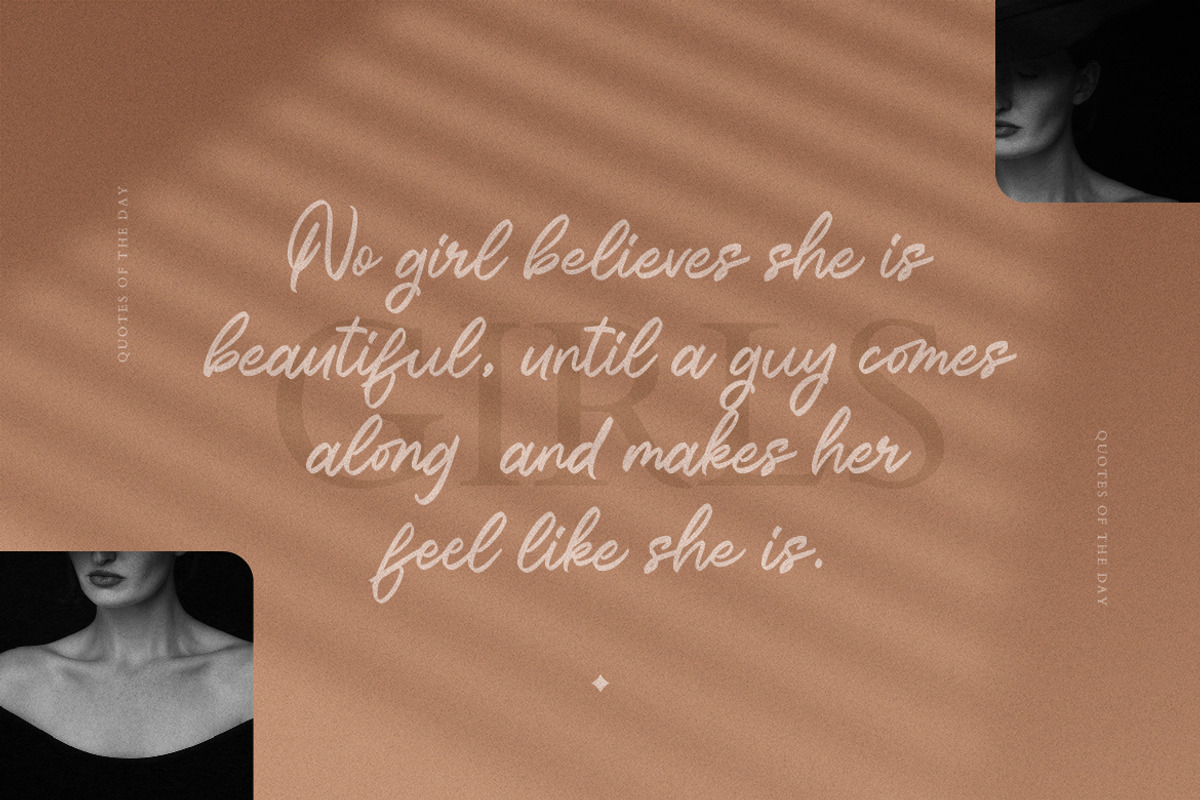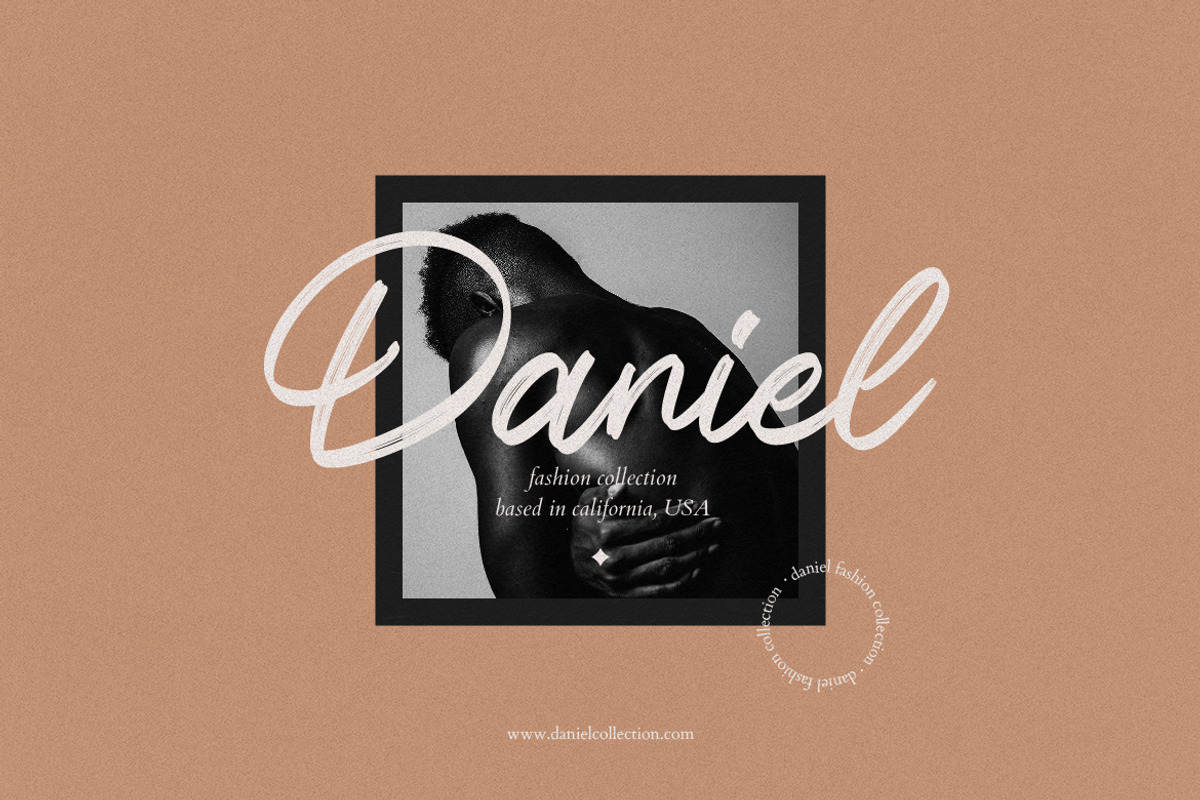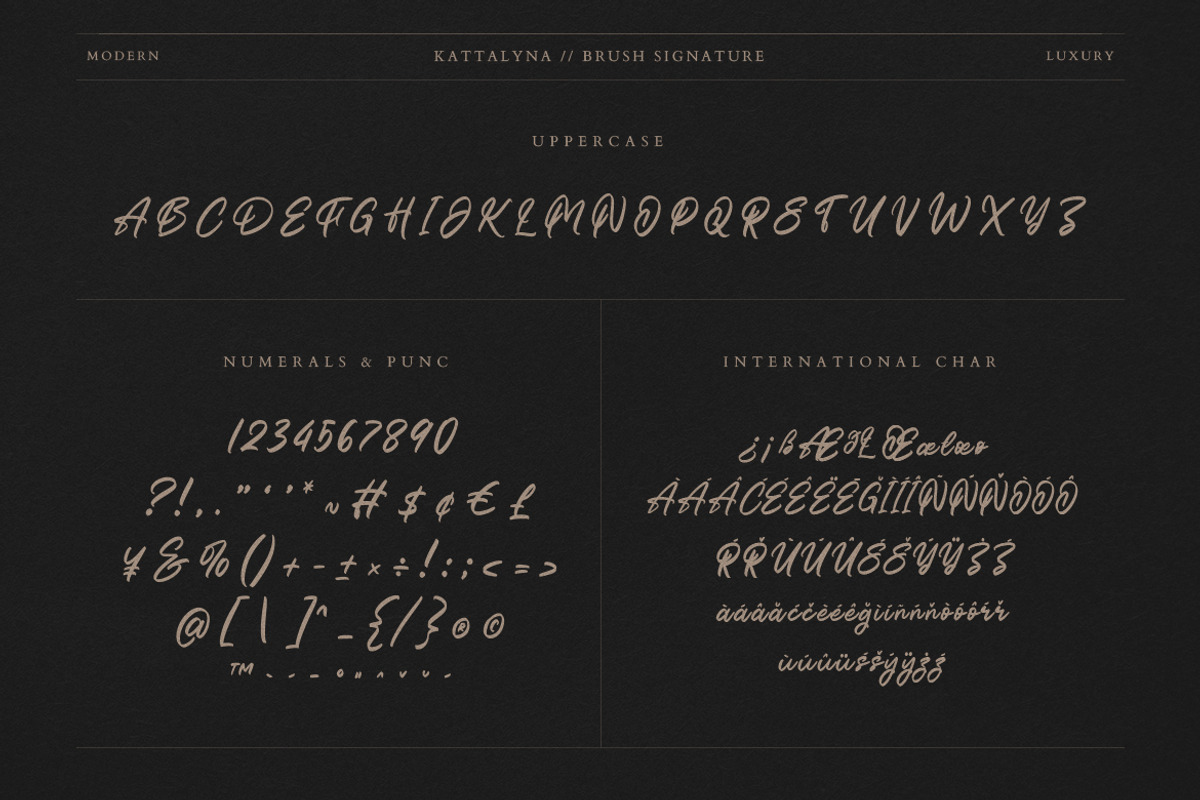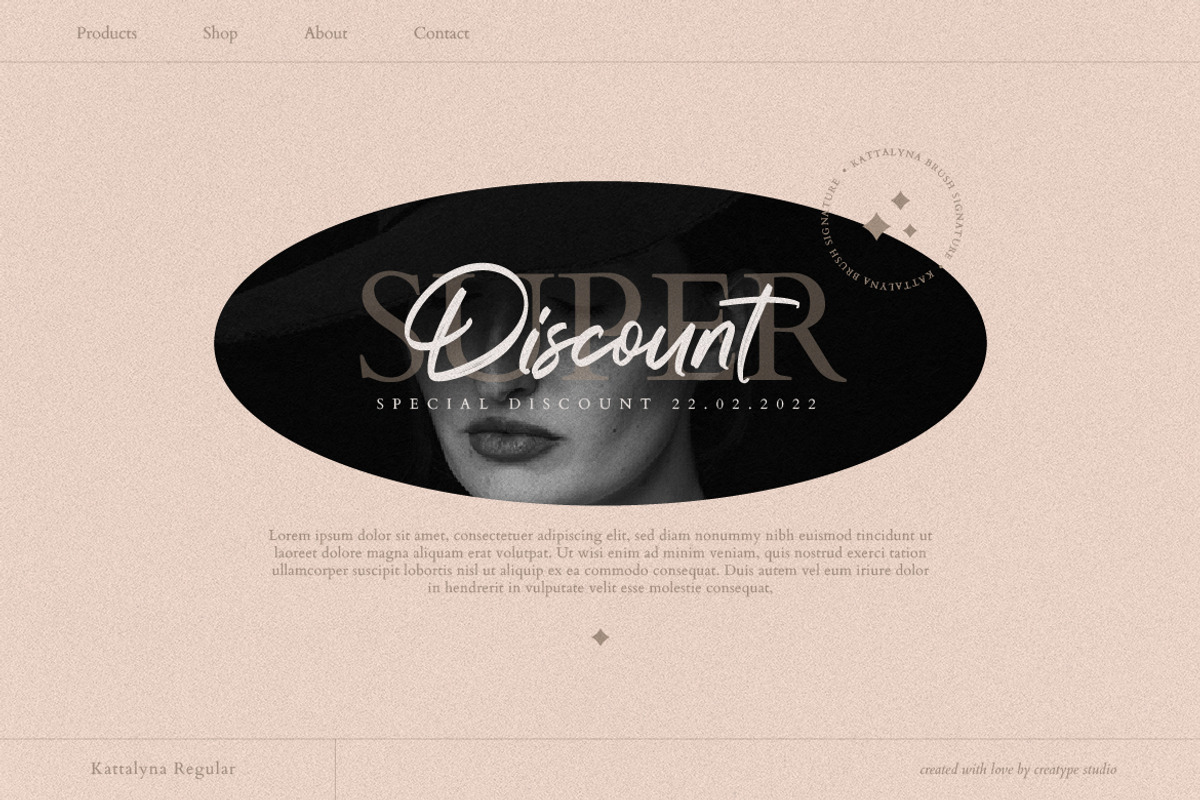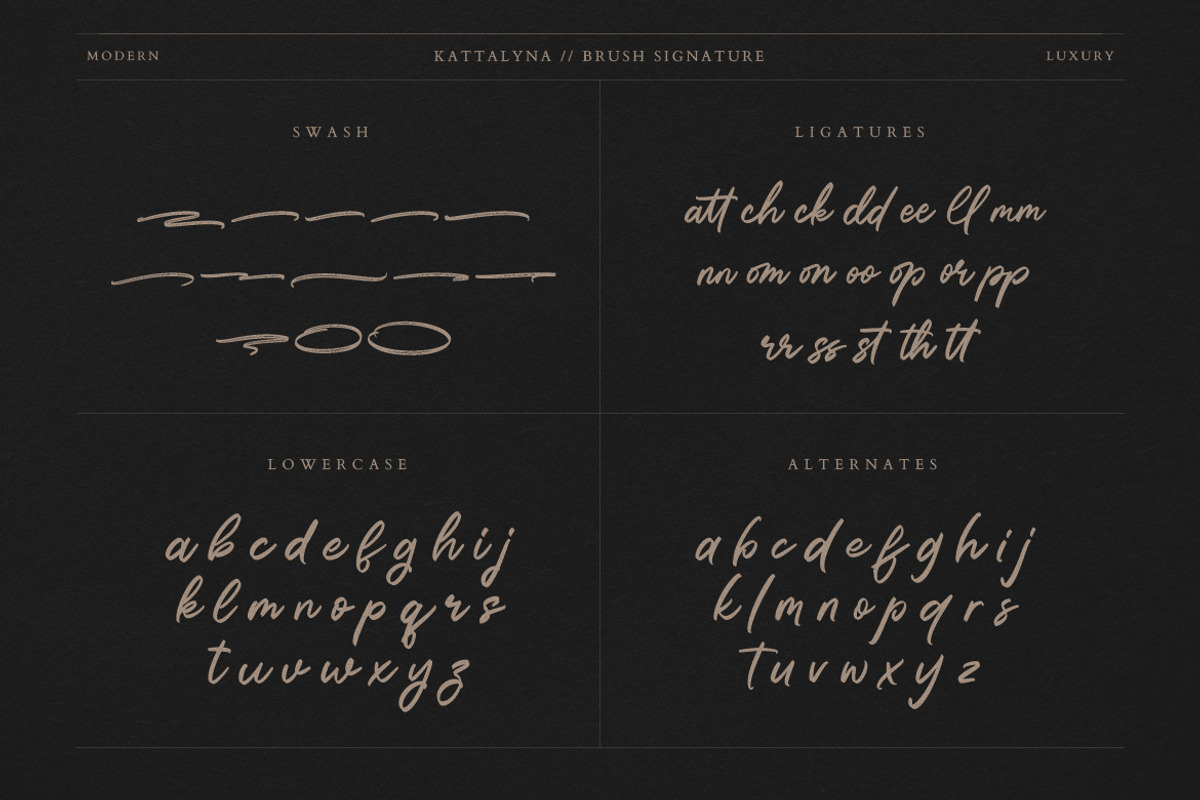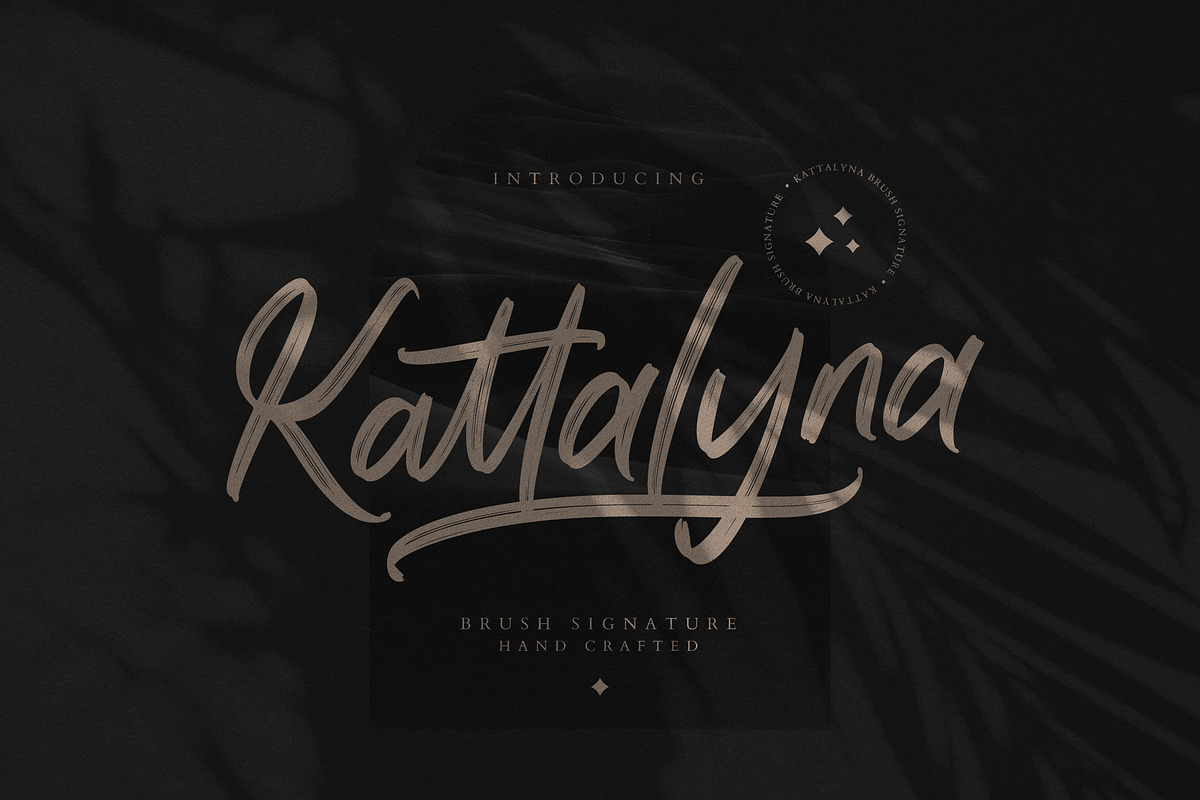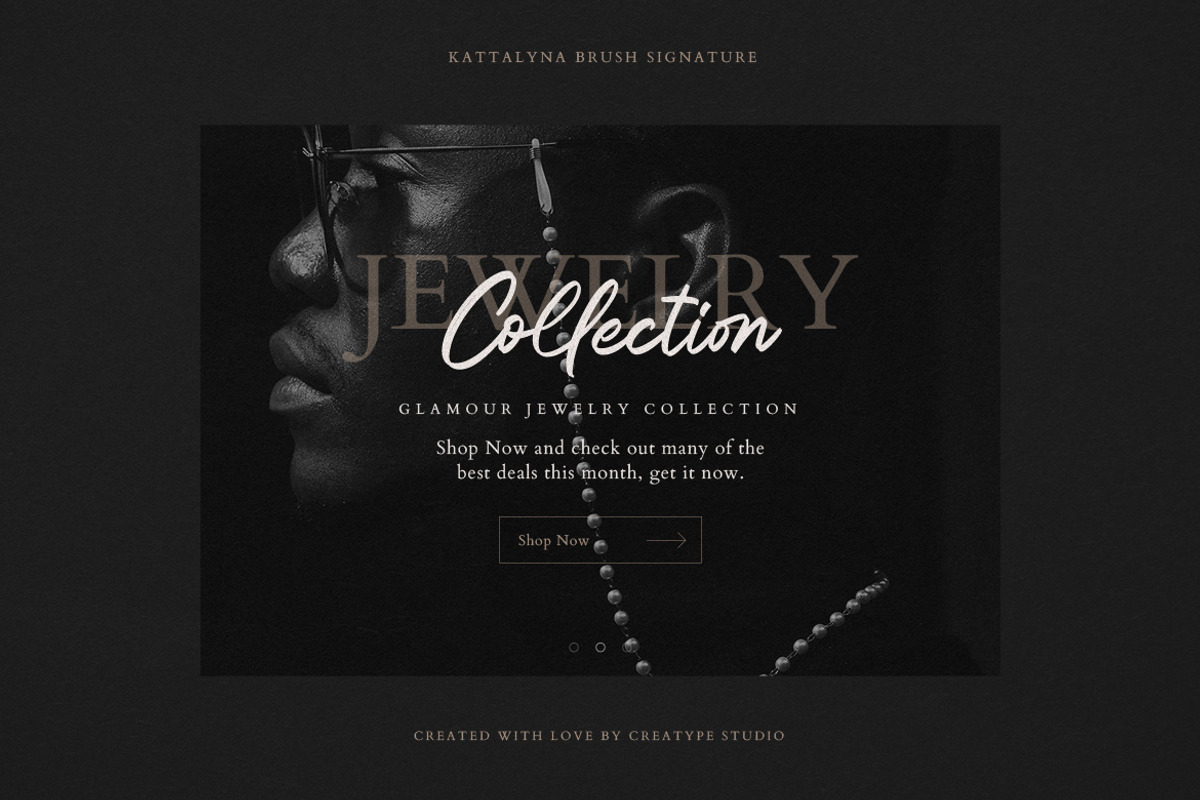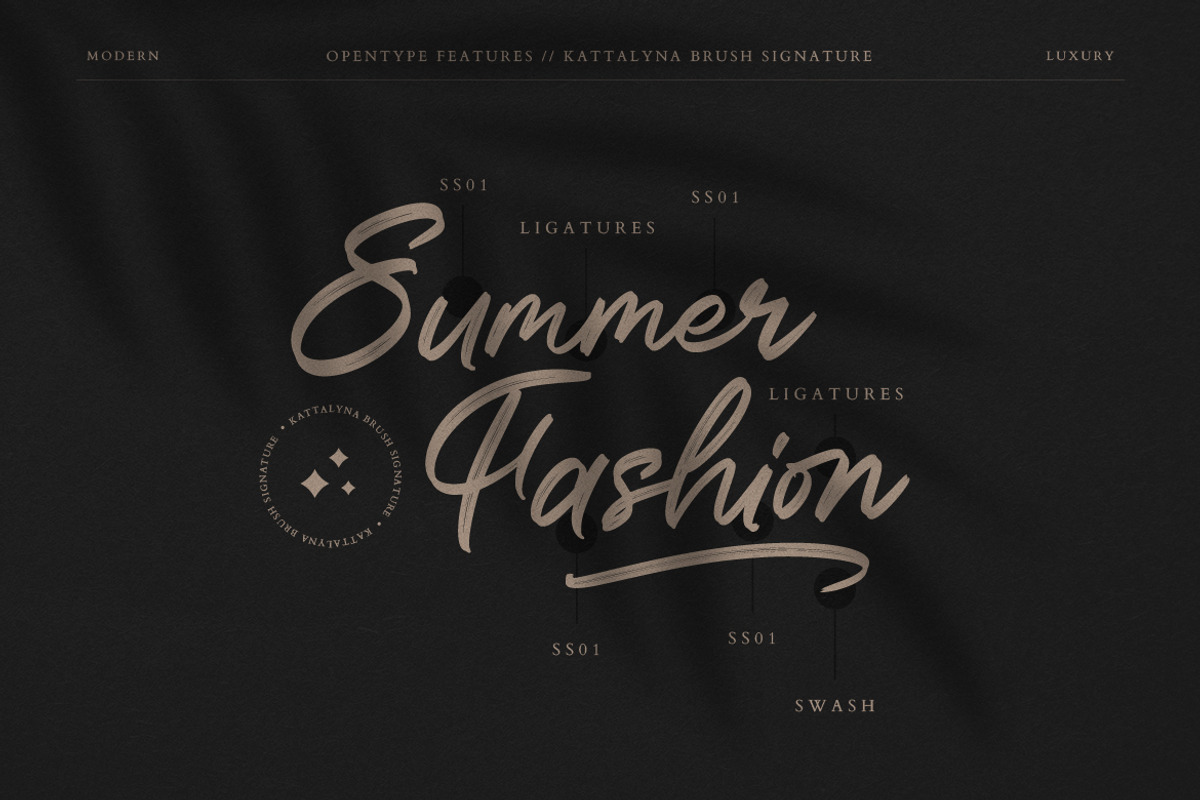
Kattalyna Brush Signature
Kattalyna Brush Signature is a bold handwritten font with a very detailed brush texture. The detailed brush texture of the font makes Kattalyna appearance look so natural, elegant, and modern.
Kattalyna Brush Signature is perfect for branding projects, logo, wedding designs, social media posts, advertisements, product packaging, product designs, label, photography, watermark, invitation, stationery and any projects that need handwriting taste.
- Ligature & Alternate
- Fonts include multilingual support for; Afrikaans, Albanian, Czech, Danish, Dutch, English, Estonian, Finnish, French, German, Hungarian, Italian, Latvian, Lithuanian, Norwegian, Polish, Portuguese, Slovak, Slovenian, Spanish, Swedish.